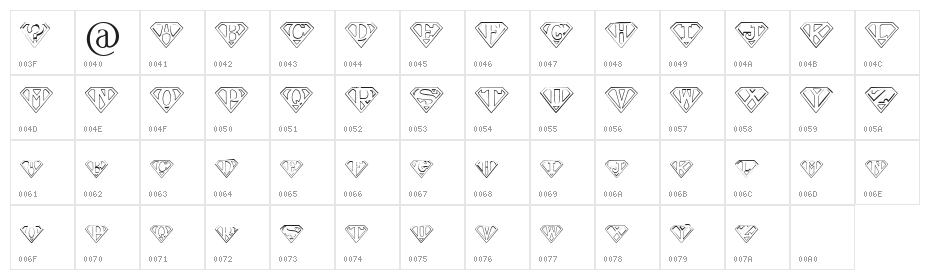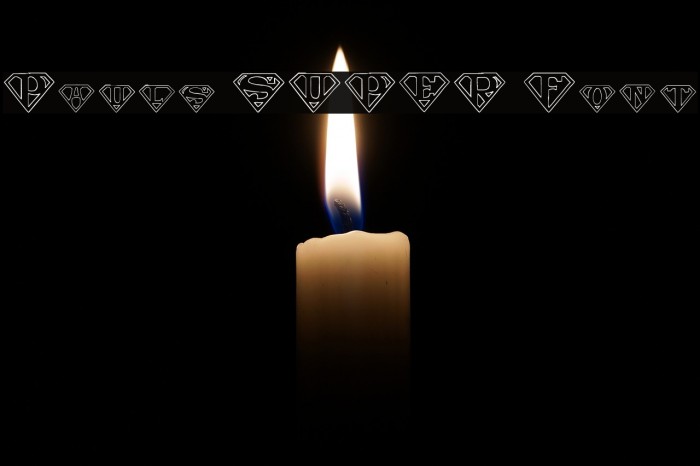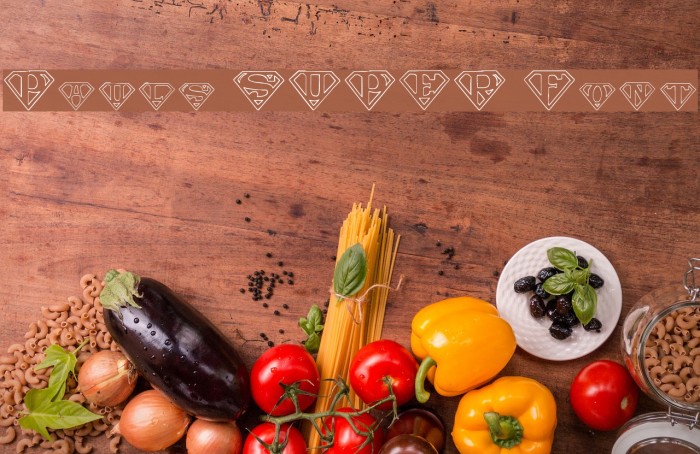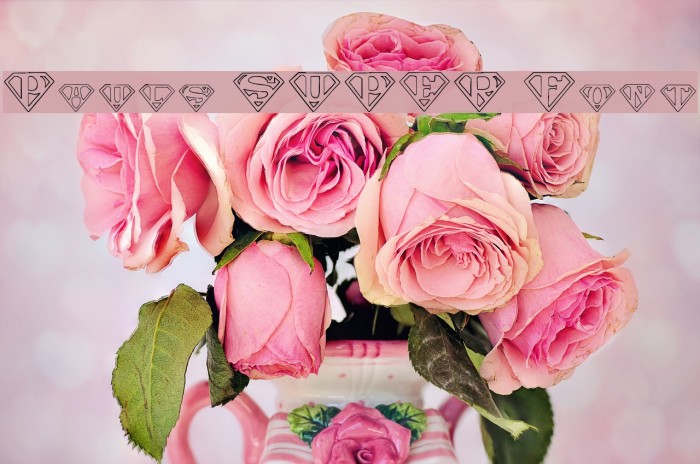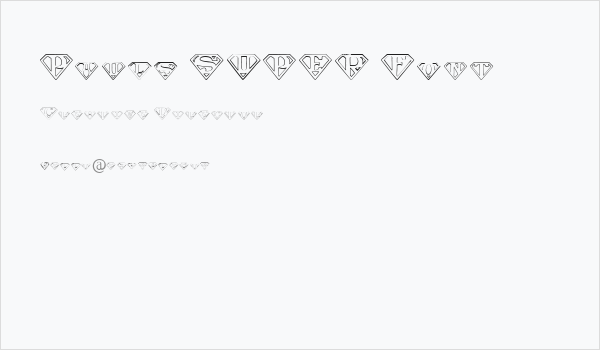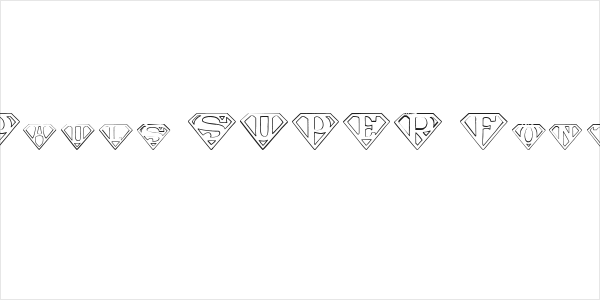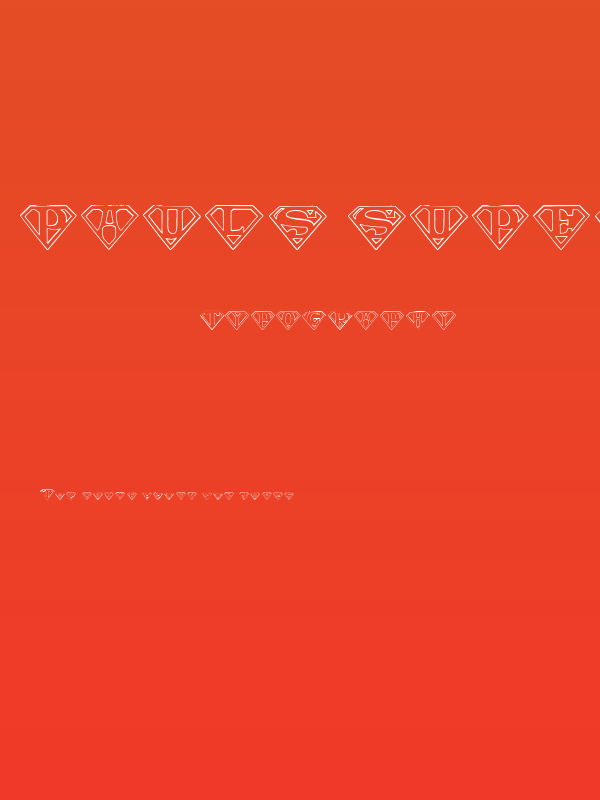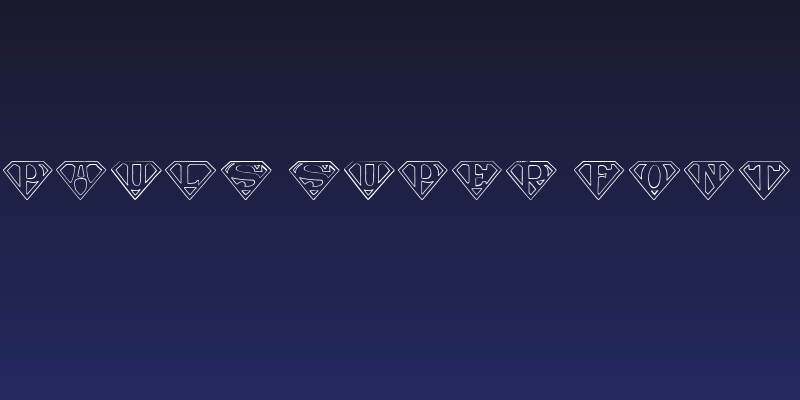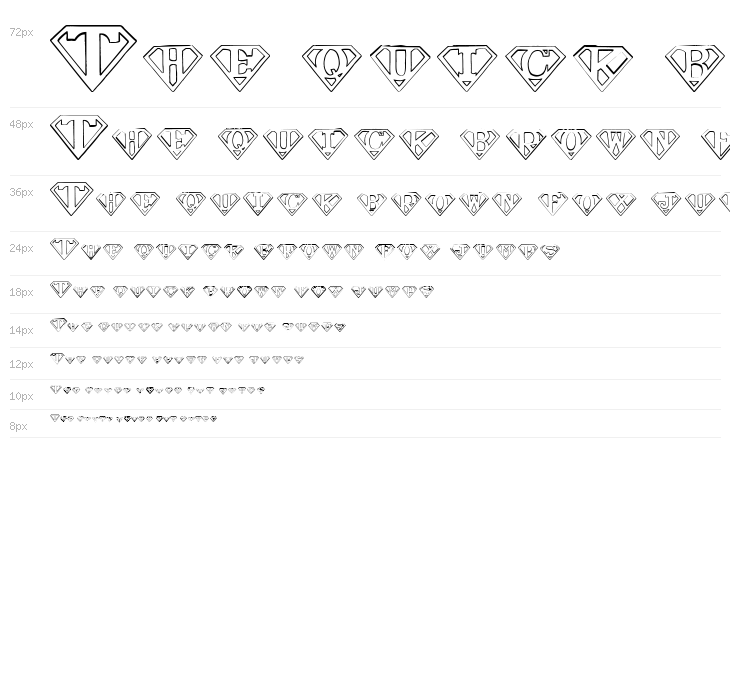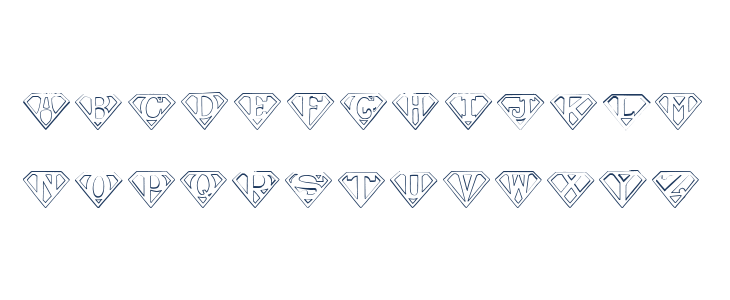
Pauls SUPER Font Font
Pauls SUPER Font Description
This font features a unique design where each character is enclosed within a diamond-shaped outline, reminiscent of a superhero emblem. The letters are bold and geometric, with a distinct sense of symmetry and balance. The interior of each letter is filled with intricate line work that adds depth and dimension, creating a striking visual effect. This font is highly decorative and stands out with its superhero-inspired theme, making it ideal for projects that require a bold and adventurous aesthetic.
| Proposed Projects | Ideal for comic book titles, superhero-themed events, children's party invitations, and branding for entertainment products. |